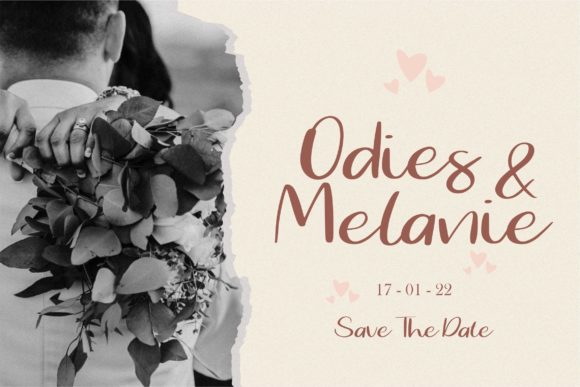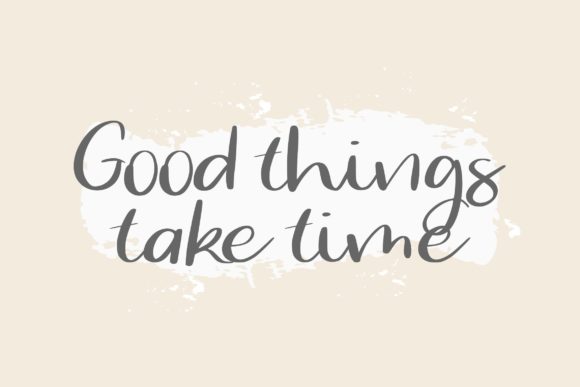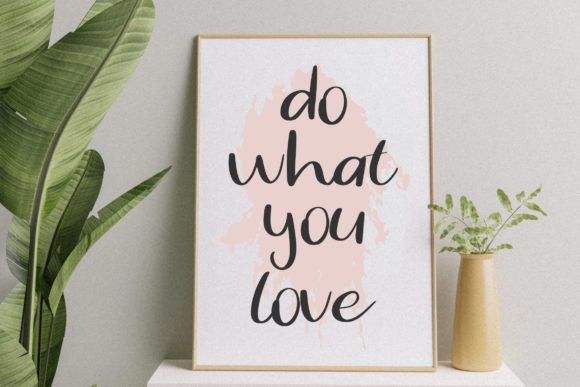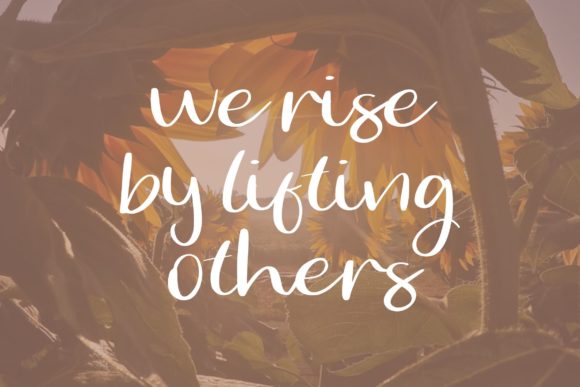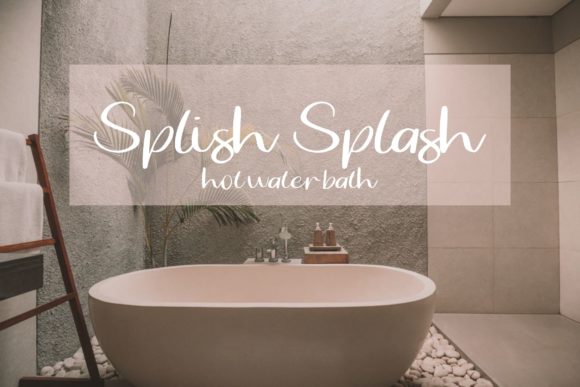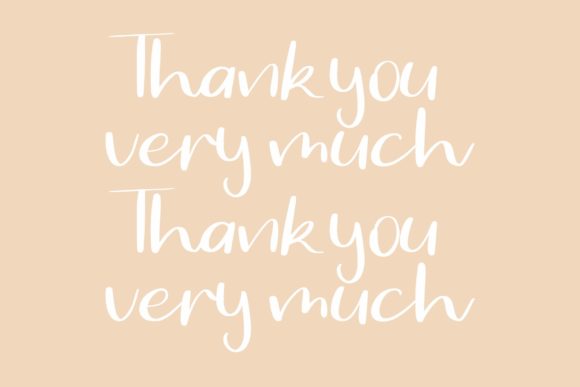
Blessing Splash Font: Elevate Your Designs with a Whimsical Script Font
In the world of typography, a well-chosen font can make all the difference in elevating your designs to the next level. If you’re a designer or crafter looking for a unique and versatile font to add to your library, look no further than Blessing Splash Font. This whimsical script font boasts a relaxed theme and a lovely style that can instantly enhance any creation.
What is Blessing Splash Font?
Blessing Splash Font is a carefully crafted script font that exudes a sense of playfulness and elegance. Its relaxed theme makes it perfect for designs that require a touch of sophistication and whimsy. The font features beautiful, flowing lines and a distinctive character set that sets it apart from more traditional fonts.
Key Features of Blessing Splash Font
- Whimsical Script Style: Blessing Splash Font boasts a unique and charming script style that adds a touch of personality to any design.
- Relaxed Theme: The font’s relaxed theme makes it perfect for designs that require a laid-back and casual feel.
- Versatile: Blessing Splash Font can be used for a wide range of design projects, from branding and packaging to invitations and social media graphics.
- Easily Readable: Despite its whimsical nature, Blessing Splash Font is surprisingly easy to read, making it perfect for body text and headlines.
Why Choose Blessing Splash Font?
So, why should you choose Blessing Splash Font for your design projects? Here are just a few compelling reasons:
- Adds Personality to Your Designs: Blessing Splash Font is the perfect way to add a touch of personality and whimsy to your designs.
- Elevates Your Brand: With its unique and charming style, Blessing Splash Font can help elevate your brand and make it stand out from the crowd.
- Versatile and Adaptable: This font can be used for a wide range of design projects, making it a valuable addition to your font library.
- High-Quality Design: Blessing Splash Font is carefully crafted to ensure that it looks great in any design, whether it’s used for a logo, headline, or body text.
How to Use Blessing Splash Font
So, how can you use Blessing Splash Font in your design projects? Here are a few ideas to get you started:
- Branding and Packaging: Use Blessing Splash Font to create eye-catching logos, labels, and packaging that stands out on store shelves.
- Invitations and Stationery: Add a touch of whimsy and elegance to your invitations, greeting cards, and stationery with Blessing Splash Font.
- Social Media Graphics: Use Blessing Splash Font to create engaging social media graphics, such as quote graphics, Facebook posts, and Instagram stories.
- Web Design: Add a touch of personality to your website with Blessing Splash Font, perfect for headings, titles, and other design elements.
In conclusion, Blessing Splash Font is a versatile and charming script font that can elevate any design project. With its whimsical style, relaxed theme, and easily readable characters, this font is perfect for designers and crafters looking to add a touch of personality to their work. Whether you’re creating branding and packaging, invitations and stationery, social media graphics, or web design elements, Blessing Splash Font is an incredibly valuable asset to have in your font library.